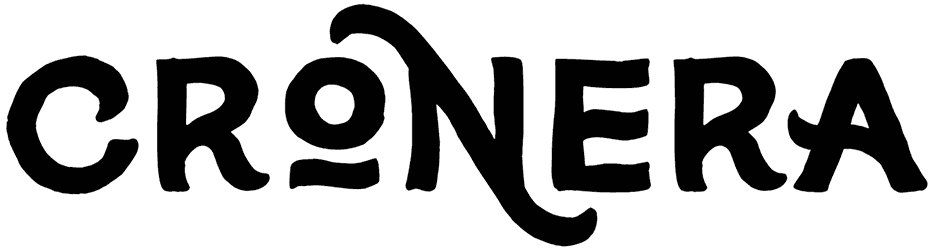
Cronera Font
Here we come again to introduce a magical travel font, such as Cronera, to you that has the real ability to convey a feeling of freshness, disorder, and dreaminess to the audience’s minds. While this font doesn’t support lowercase letters, offering two distinctive versions of uppercase letters would make up for it.
If you really want to level up your graphic content, we strongly recommend trying it on your packaging, business cards, greeting cards, or book covers.